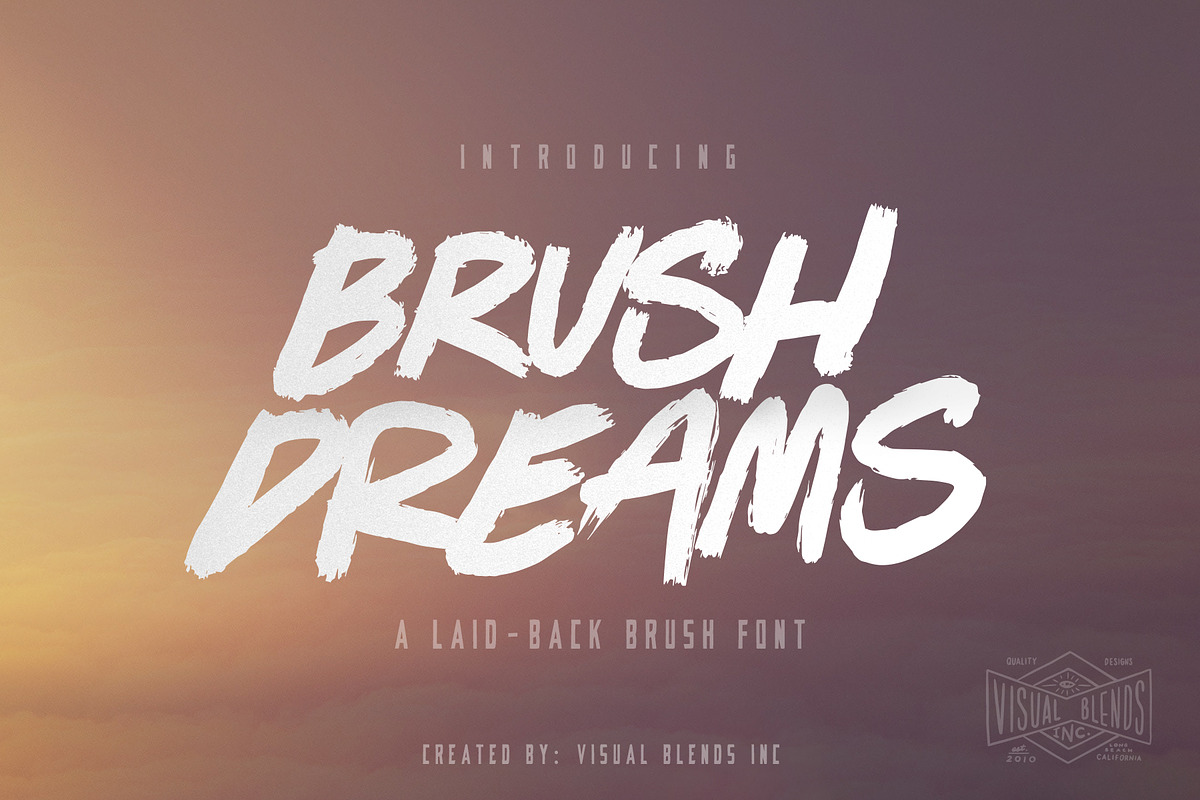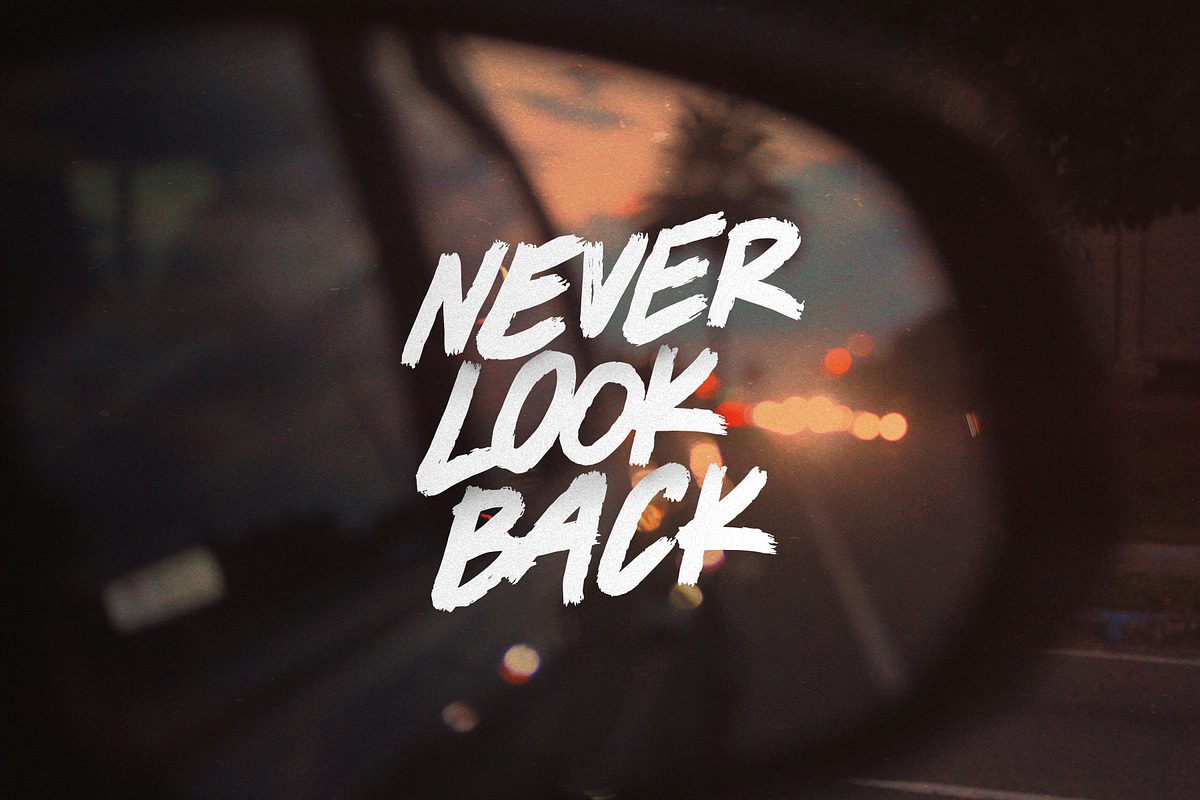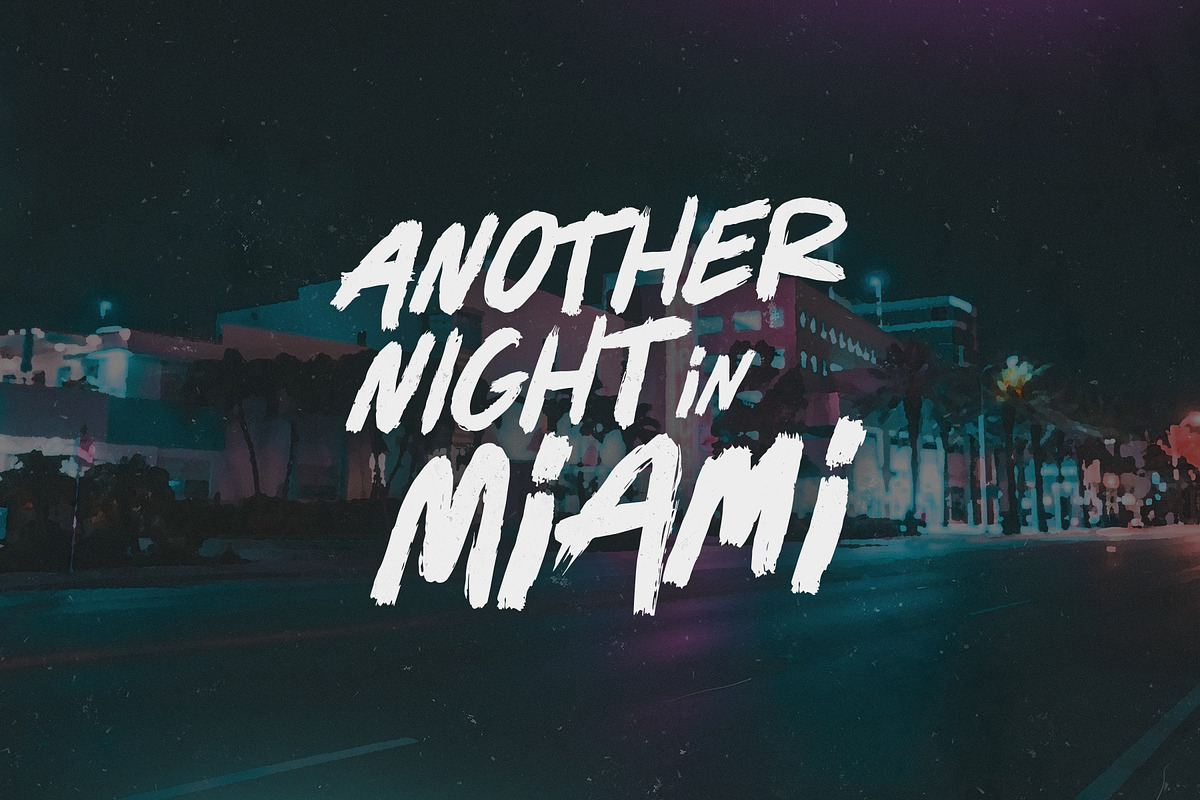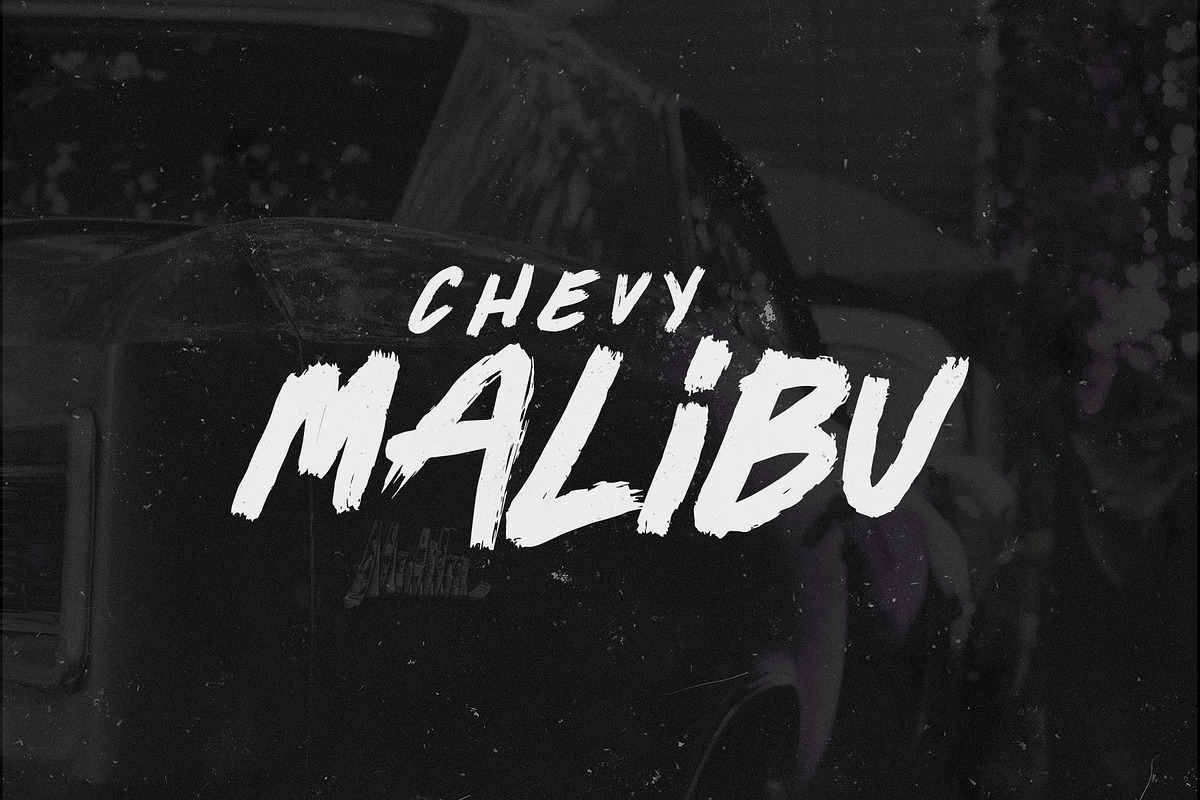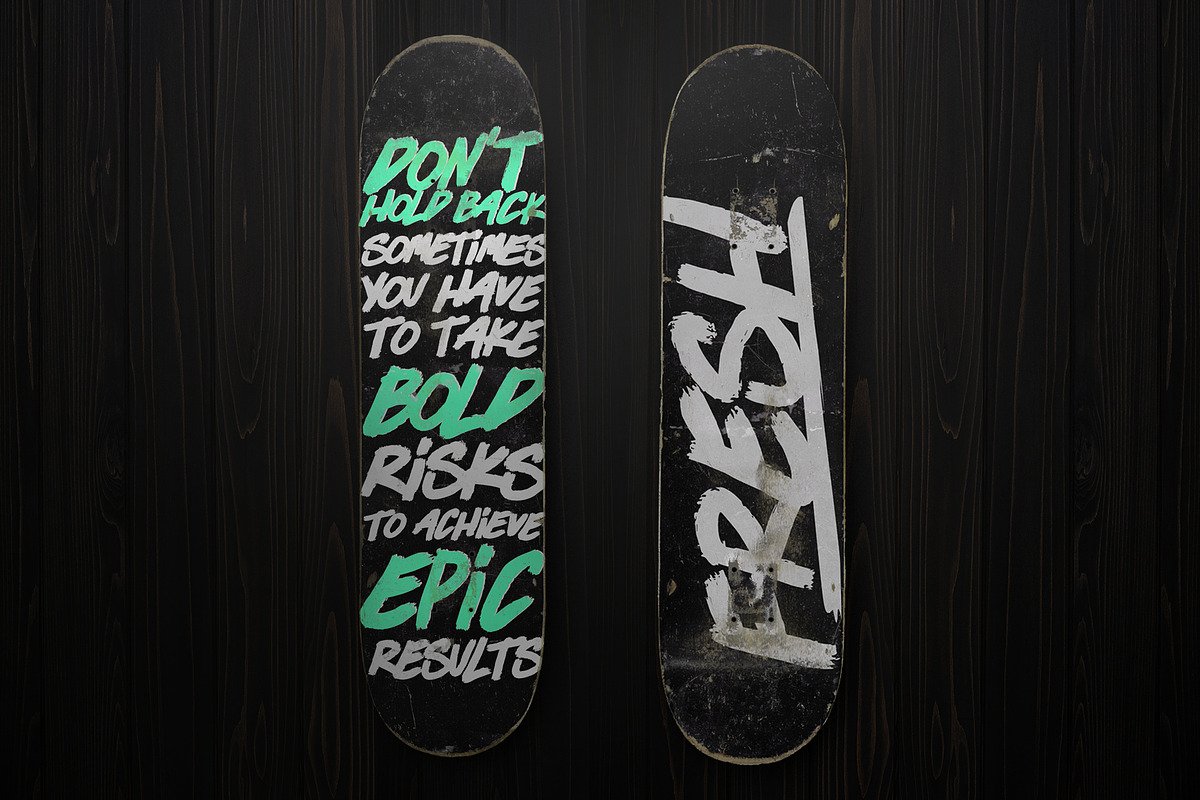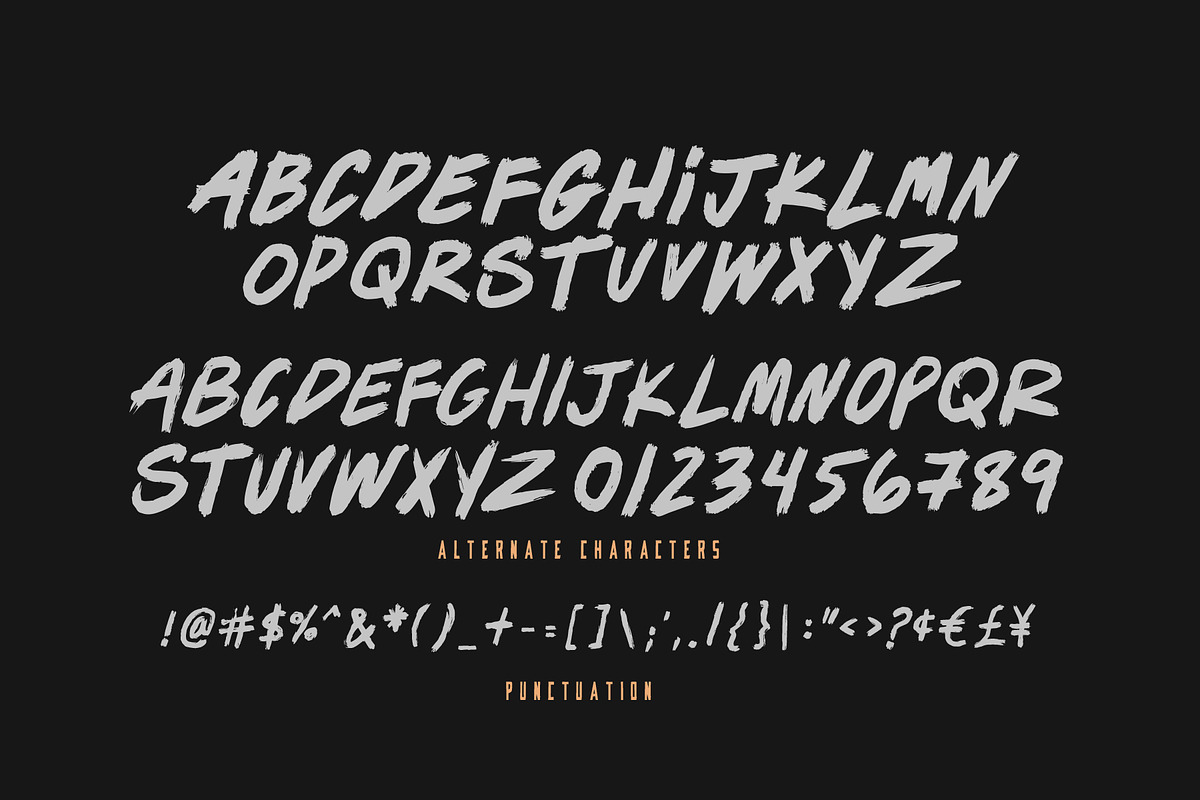
Brush Dreams
Brush dreams is a laid-back brush font with a subtle grit texture. This font has an irregular treatment between characters to give a more realistic appearance. Use lower and uppercase for alternative characters to customize.